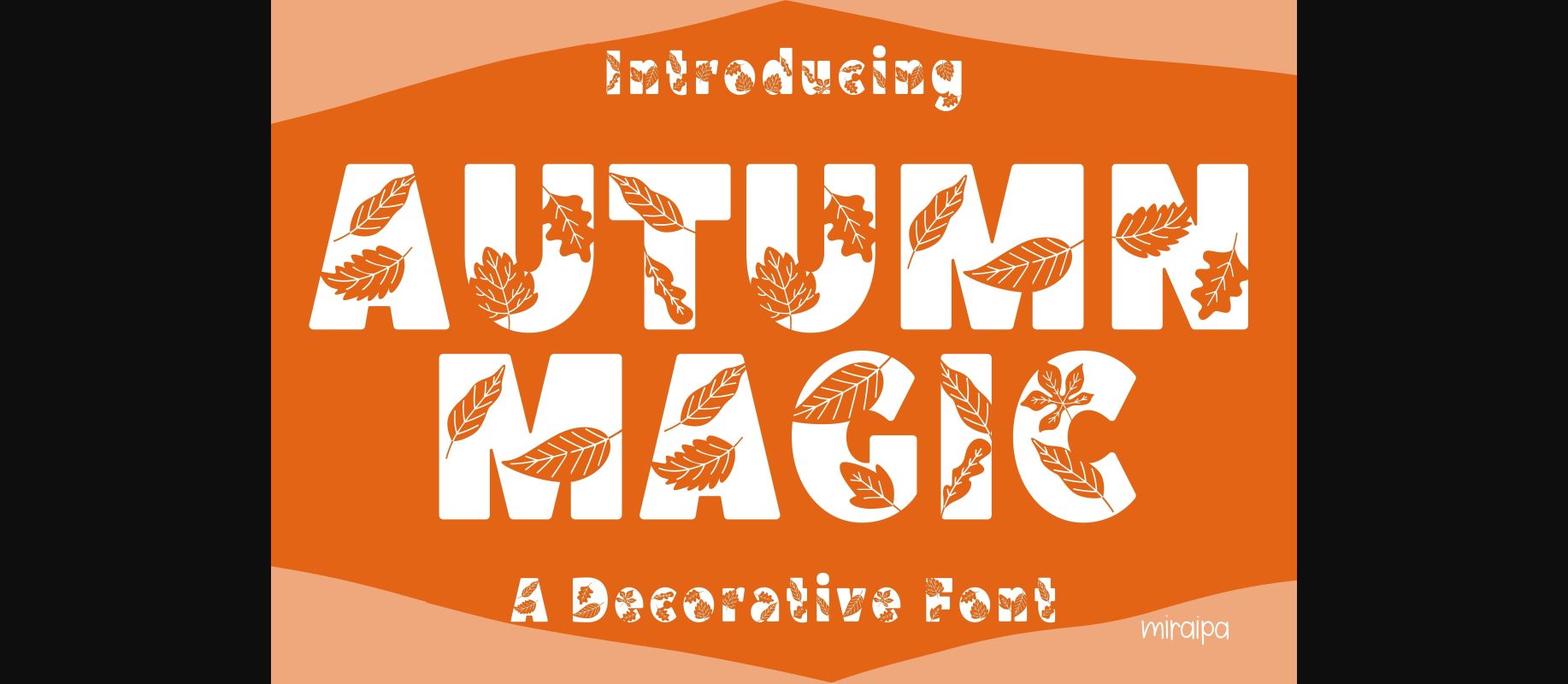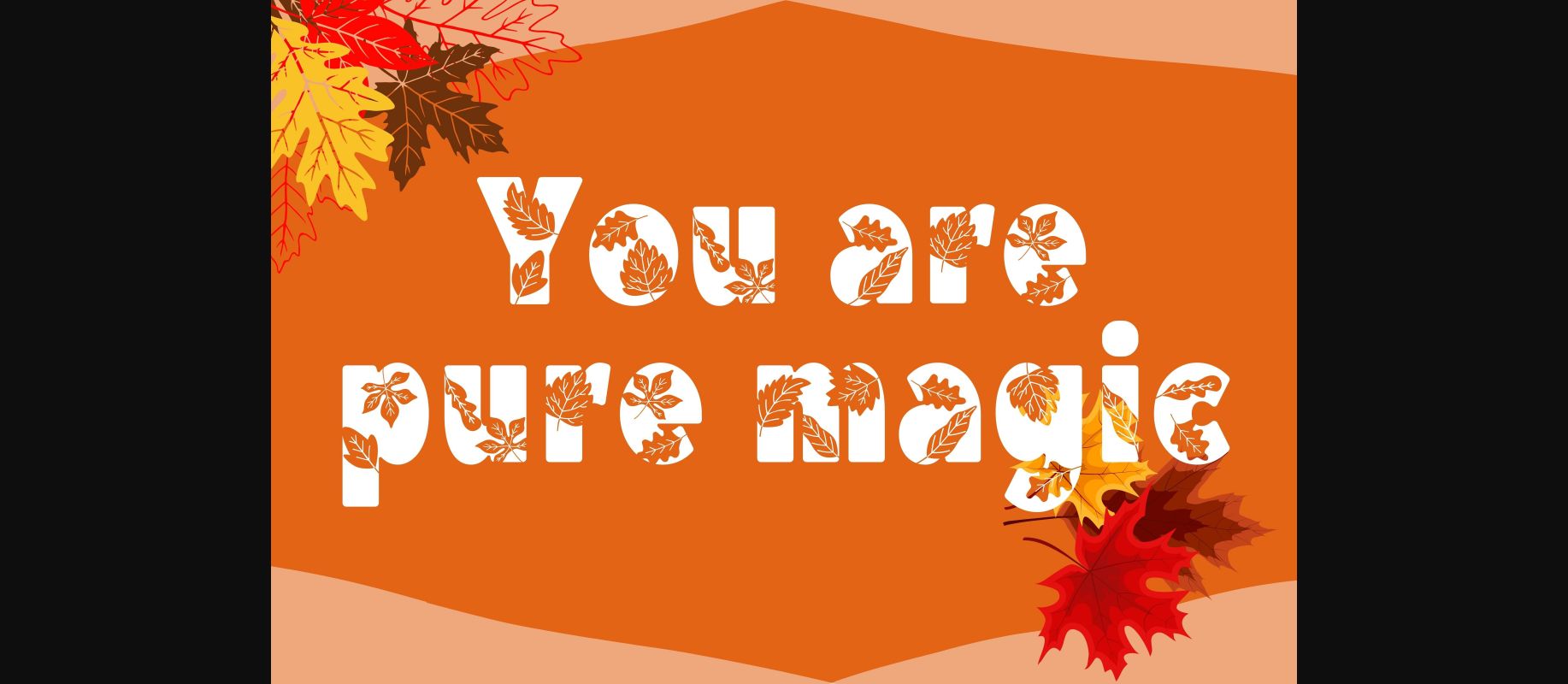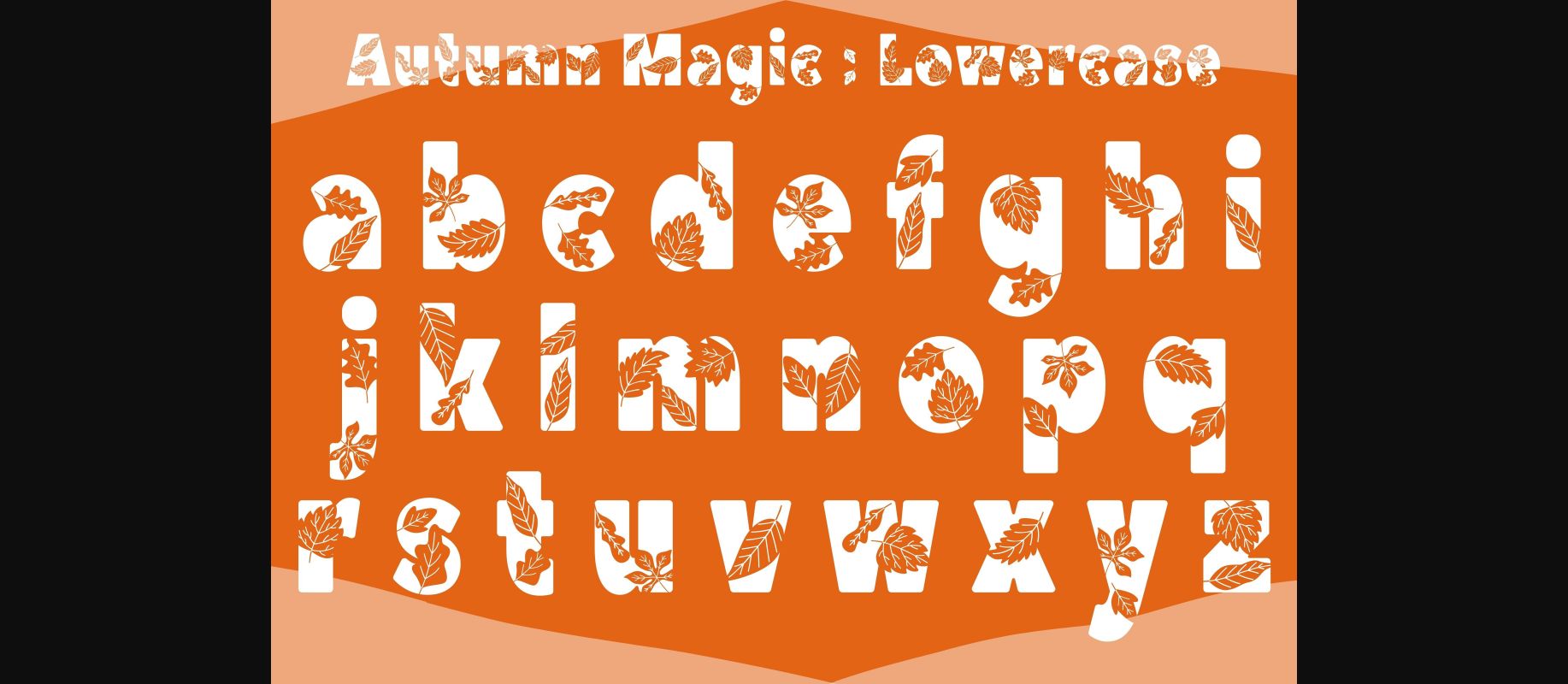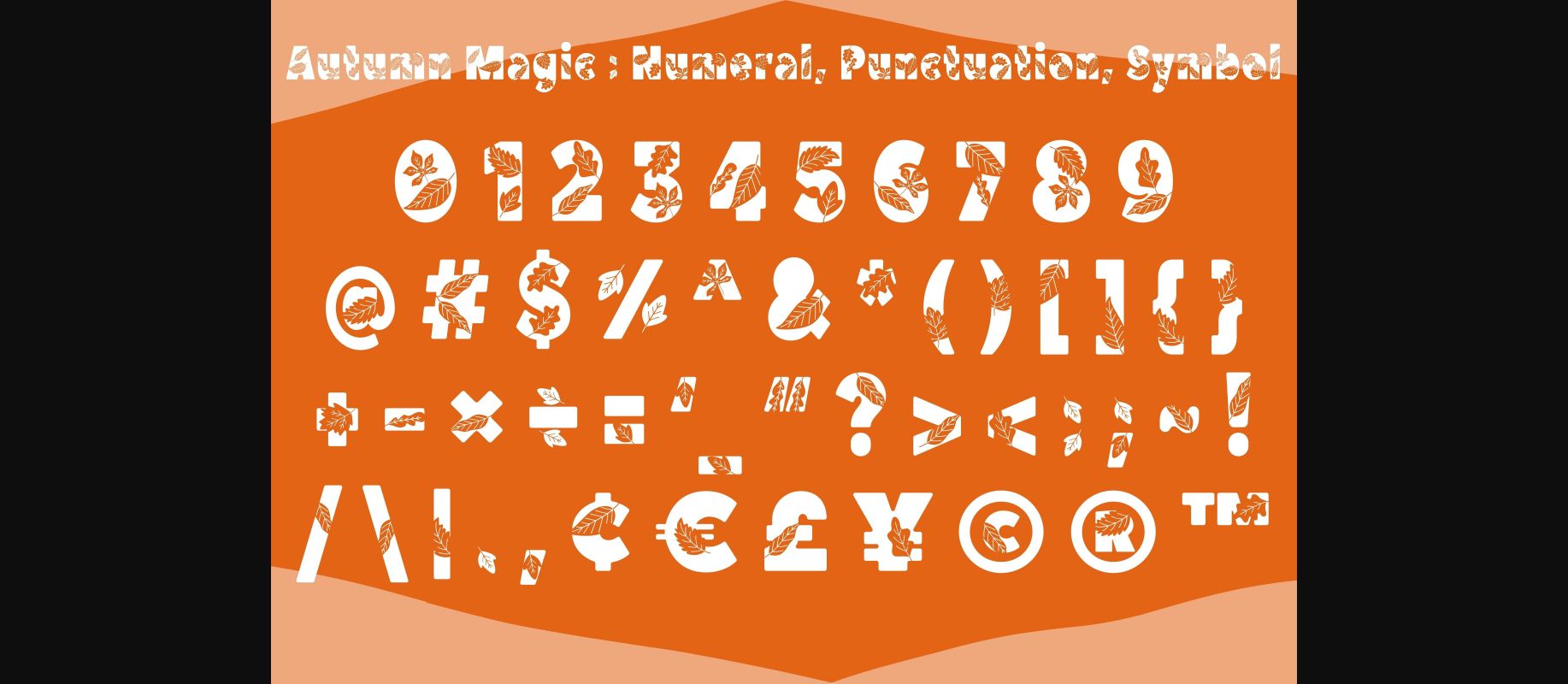
About Autumn Magic Font
Autumn Magic is a lovely and fun decorative font. Whether you’re using it for crafting, digital designing, presentations or greeting cards making, it’s perfect!